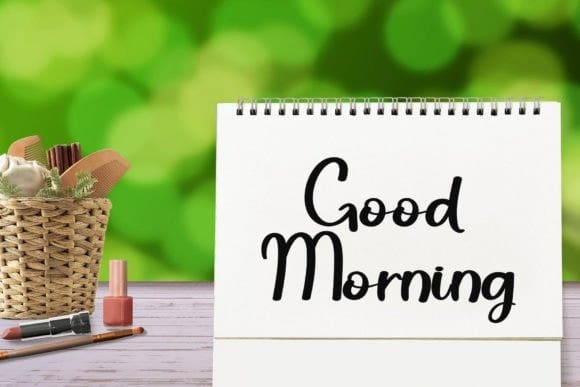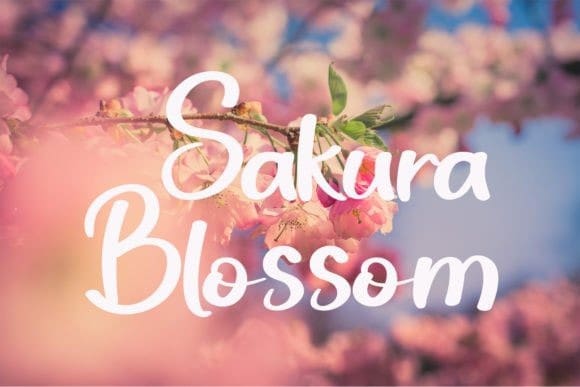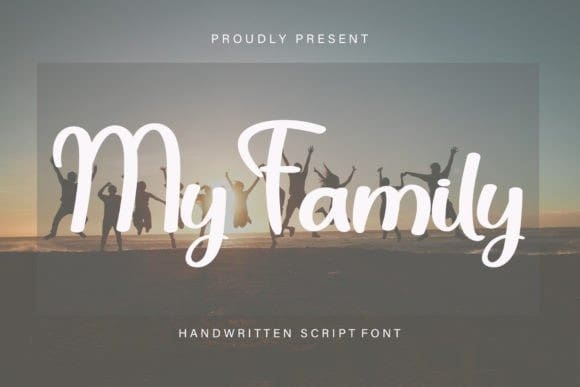
My Family Font
My Family Font is a sweet and friendly handwritten display font. Cute and fun, this font is ideal for writing wedding invitations, cards, or any other design that might need a fun touch!